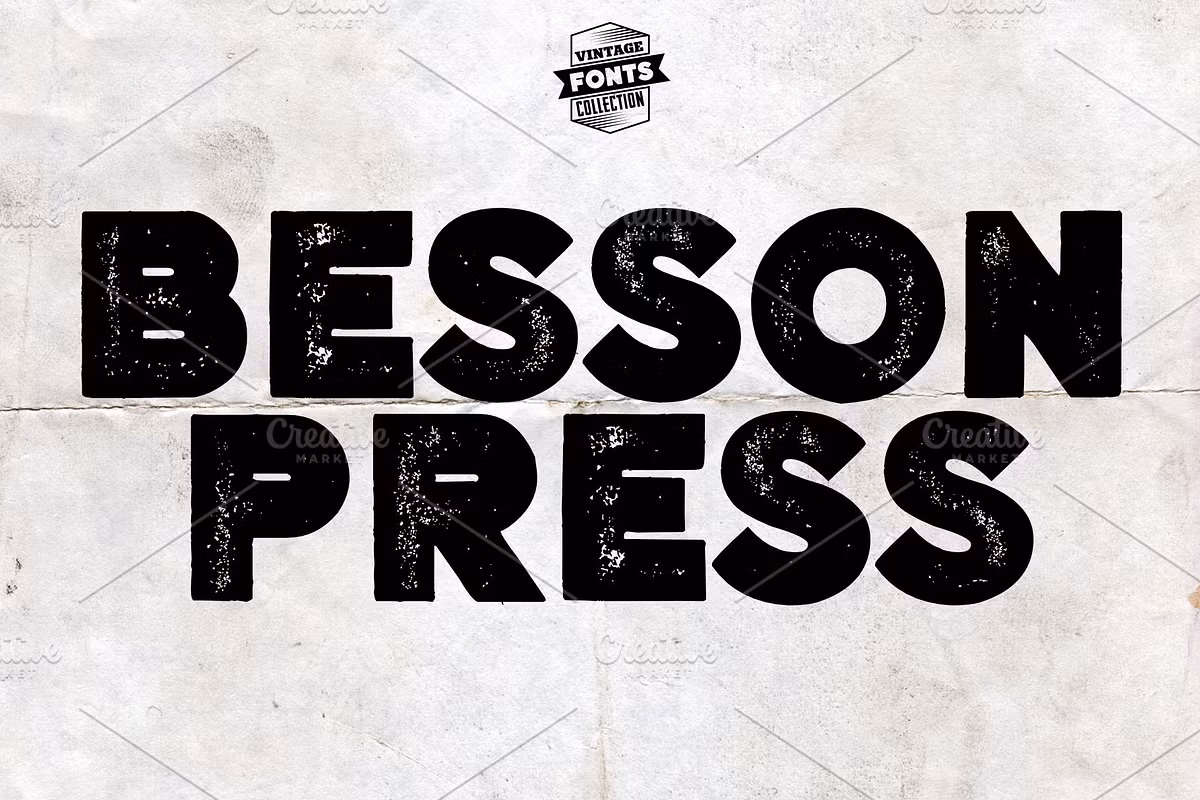
Besson – 2 Vintage Fonts Free Download is a beautifully crafted font duo that brings nostalgic charm and retro flair to your designs. Inspired by classic signage and vintage typography, this set is perfect for logos, packaging, posters, and branding that needs a timeless, handcrafted feel.
Combining bold character with authentic vintage aesthetics, Besson – 2 Vintage Fonts Free Download allows designers to mix and match styles effortlessly. Whether you’re working on a barbershop brand, a coffee label, or a retro event flyer, Besson delivers personality and heritage in every letter. Download and test the fonts in your creative projects to see how they enhance your visuals—then upgrade to the commercial license when you're ready to go live.